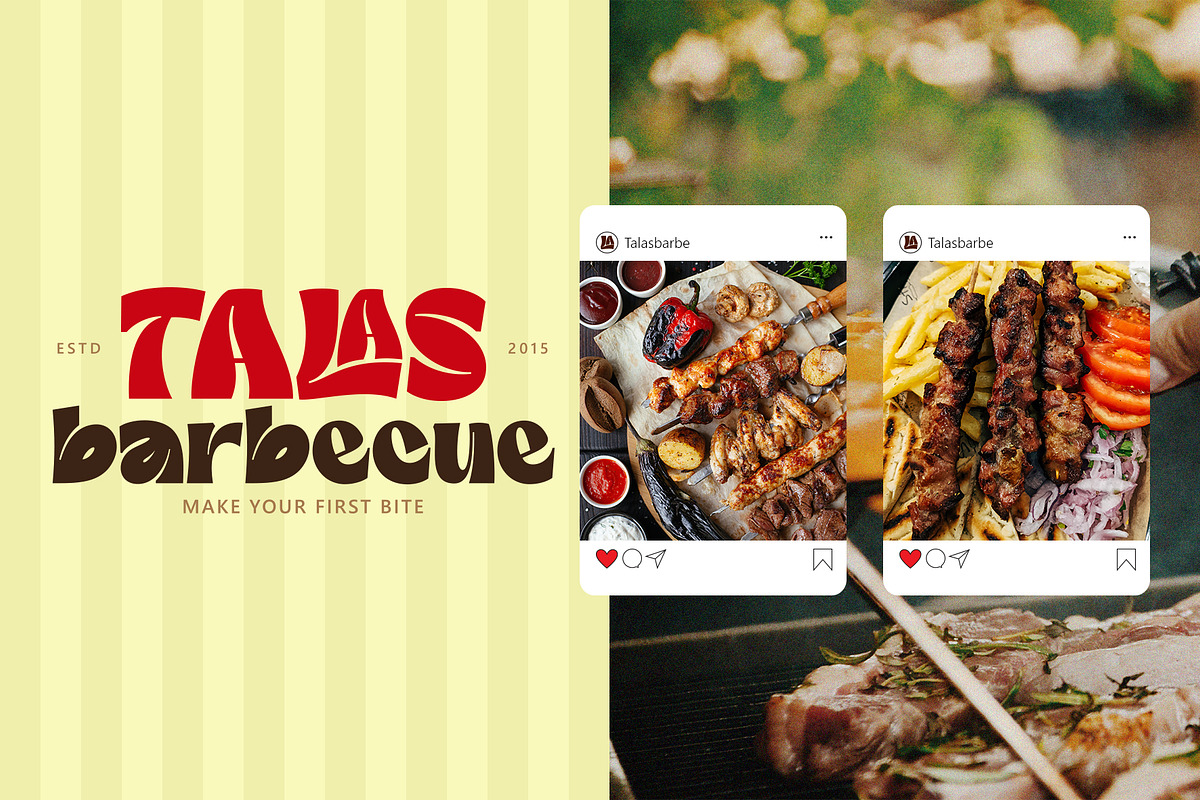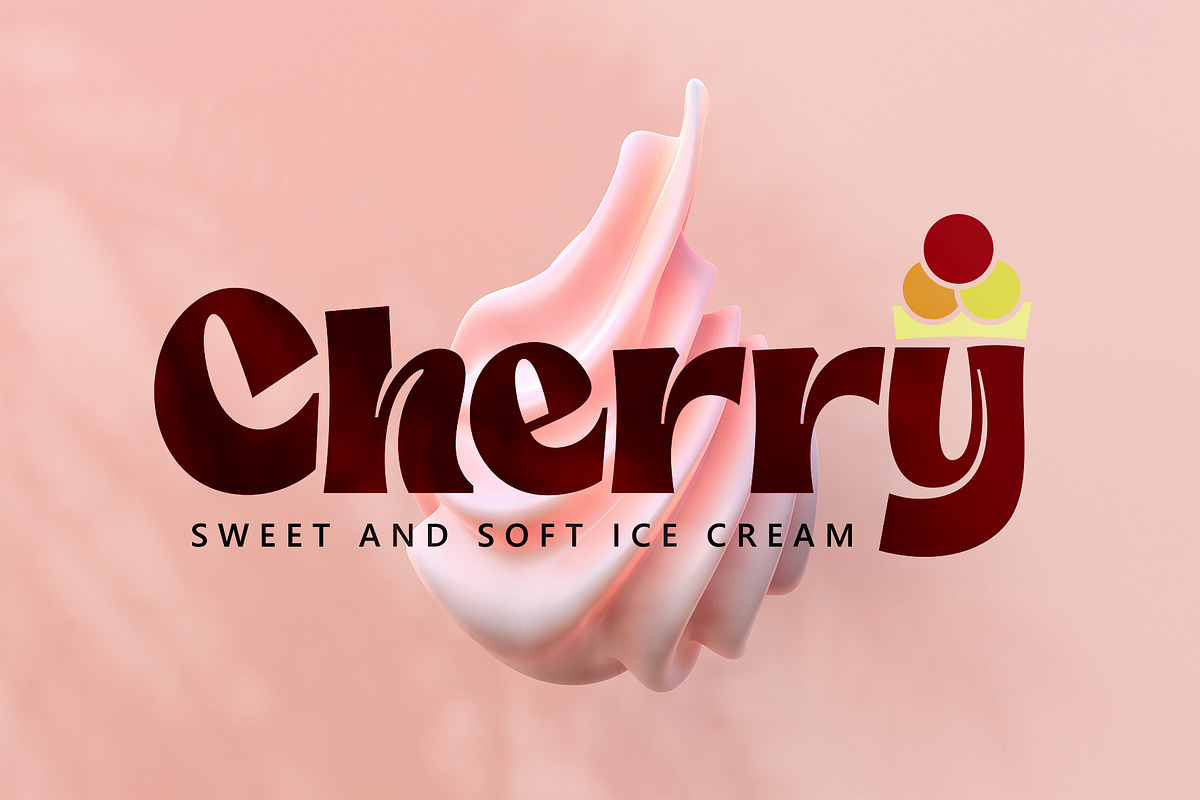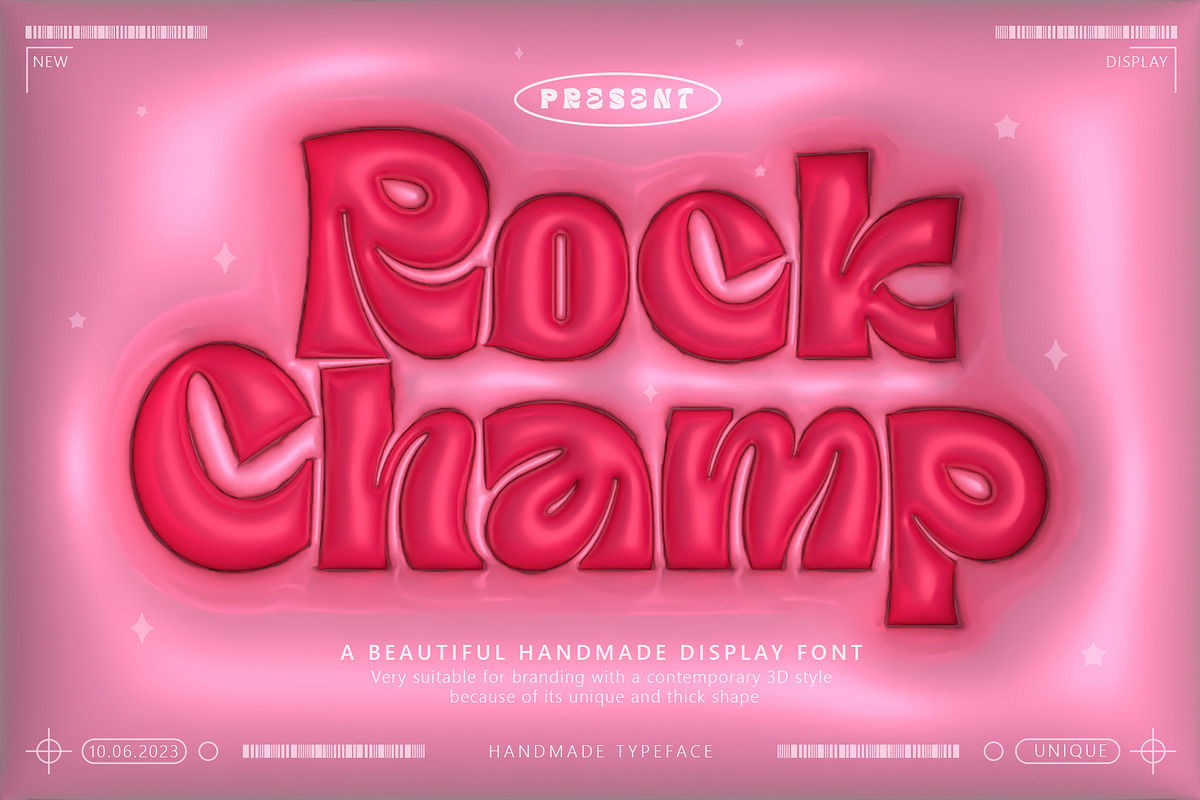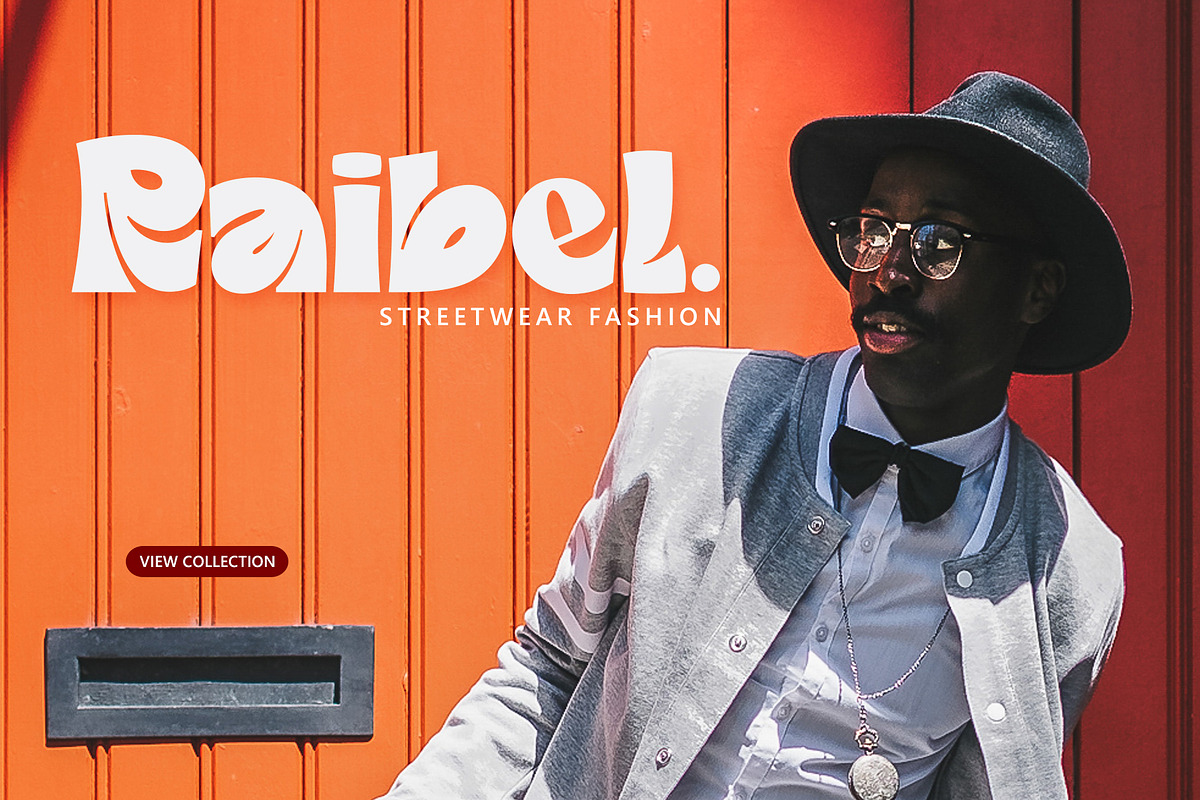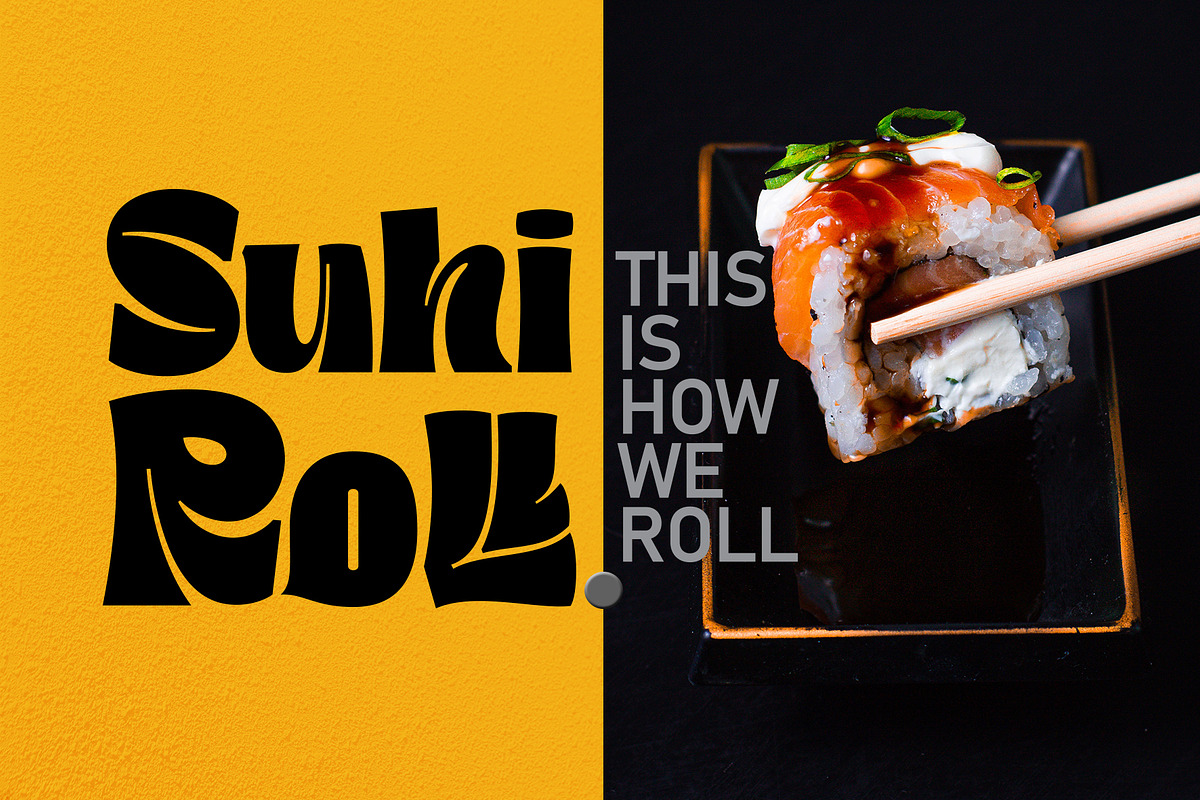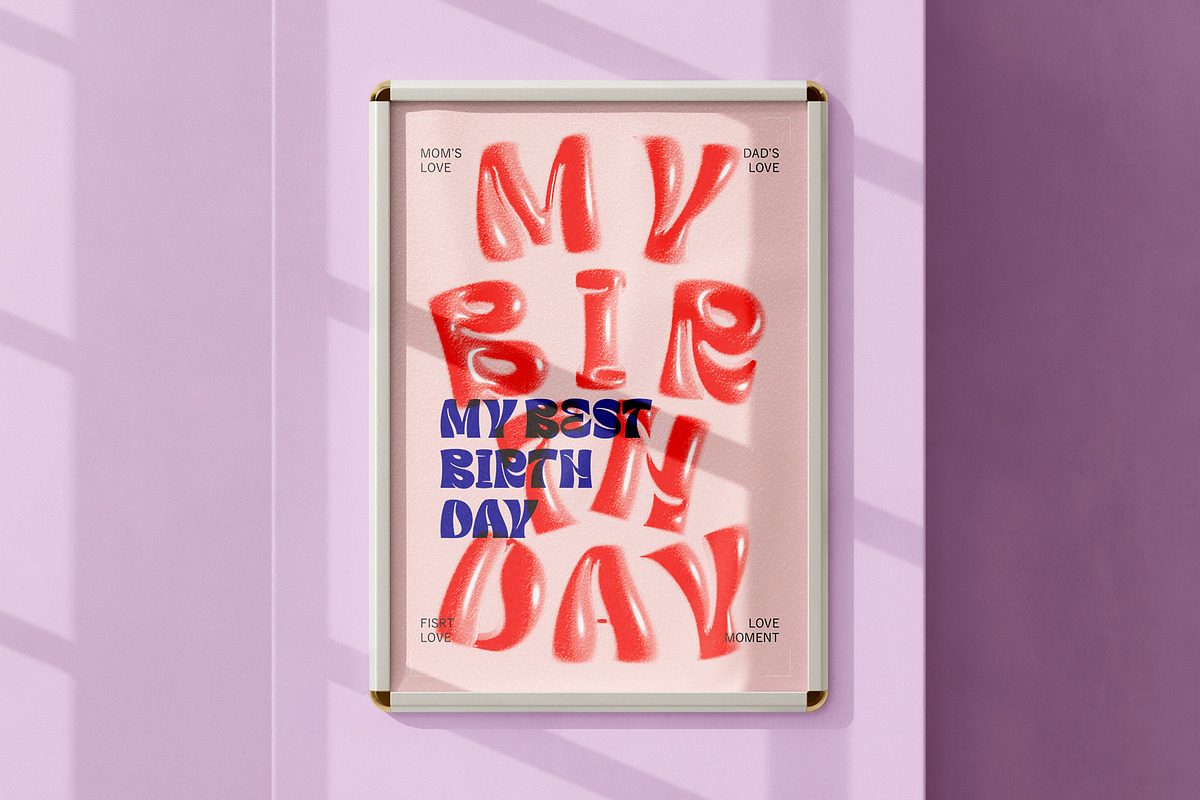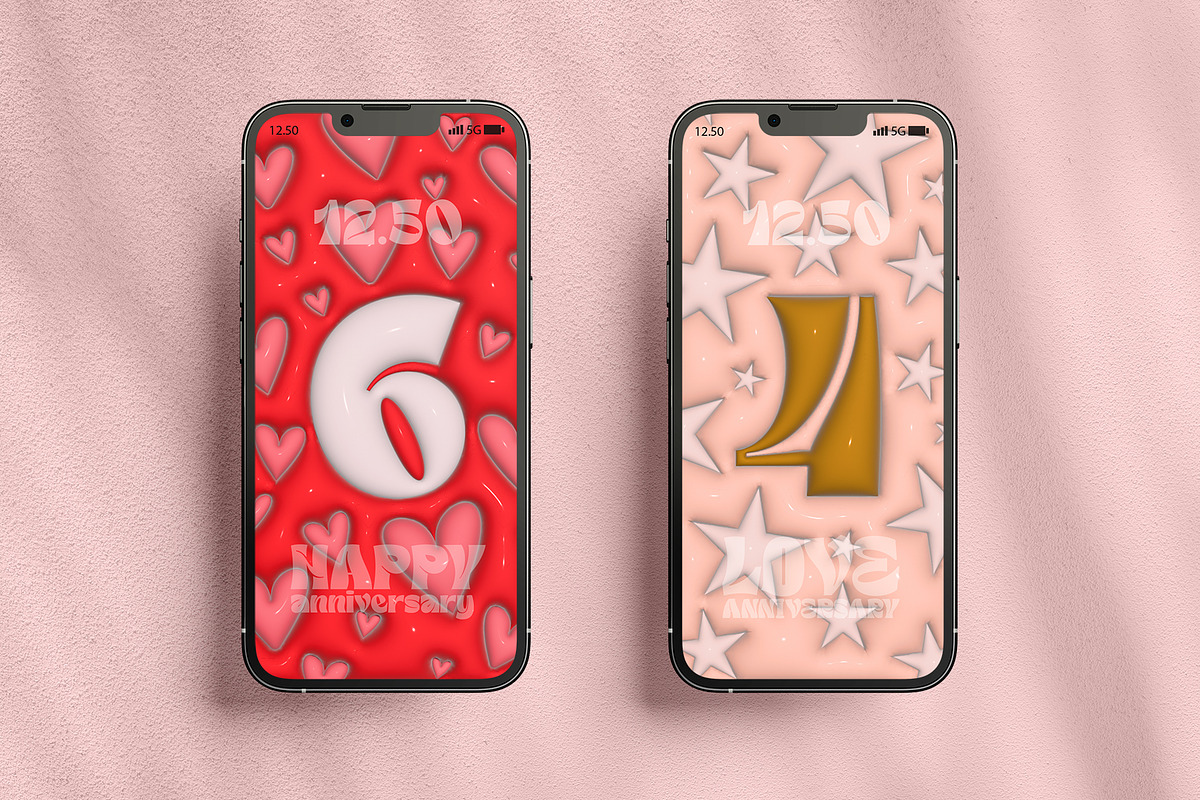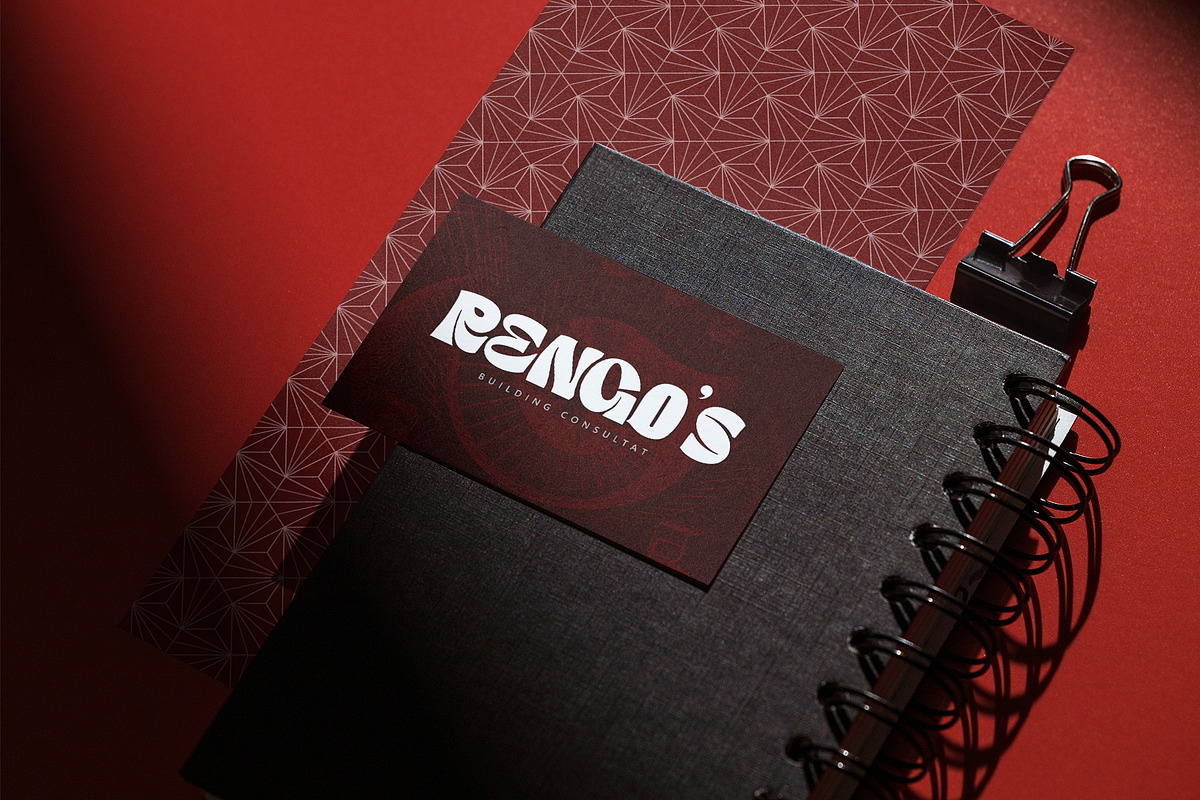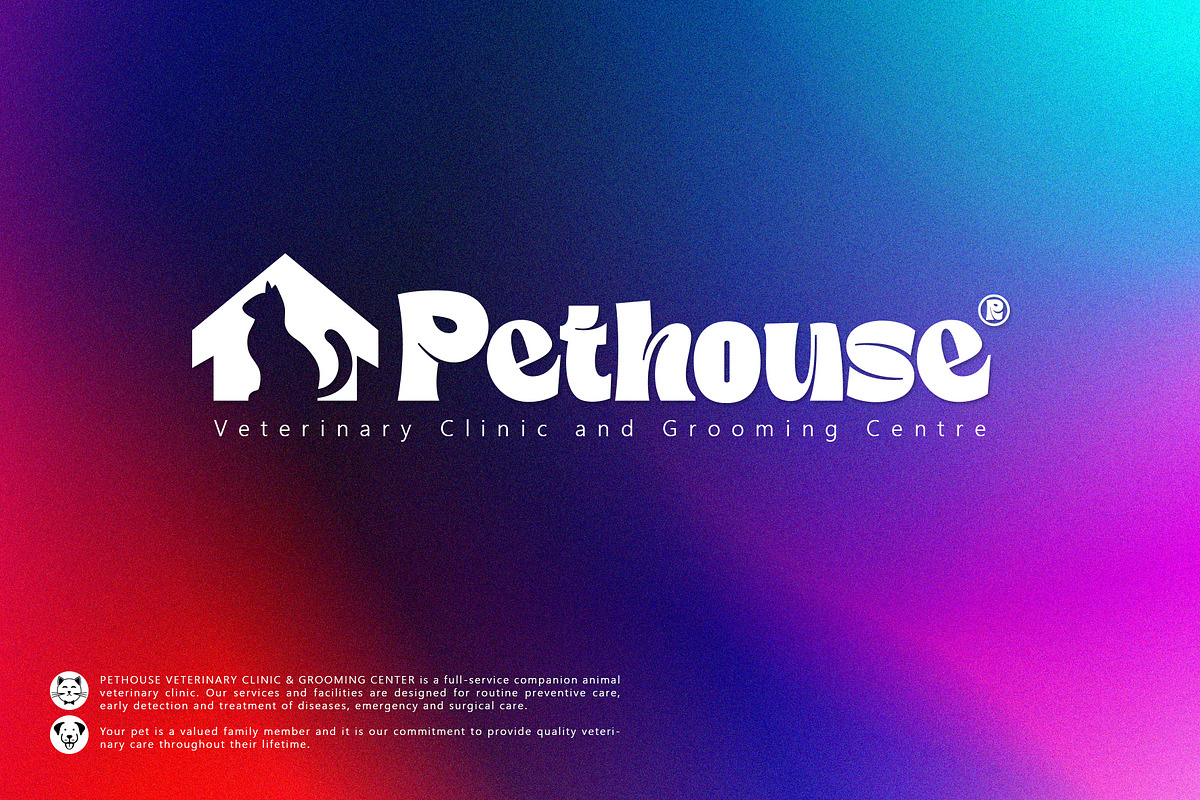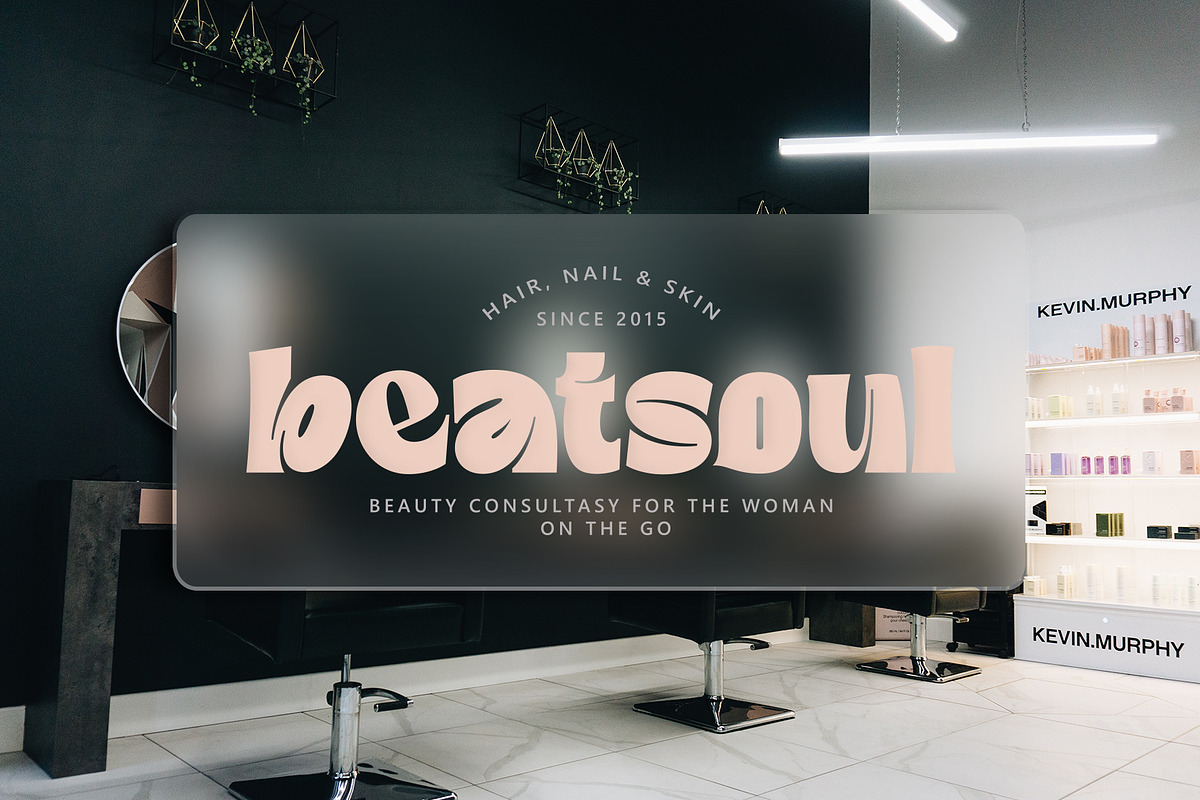
Rock Champ
Rock Champ is a beautiful display font that is suitable for branding with a contemporary 3D style because of its unique and thick shape, wedding invitations, greeting cards, posters, name card, quotes, blog header, logo, fashion, apparel, letter, stationery and other projects.